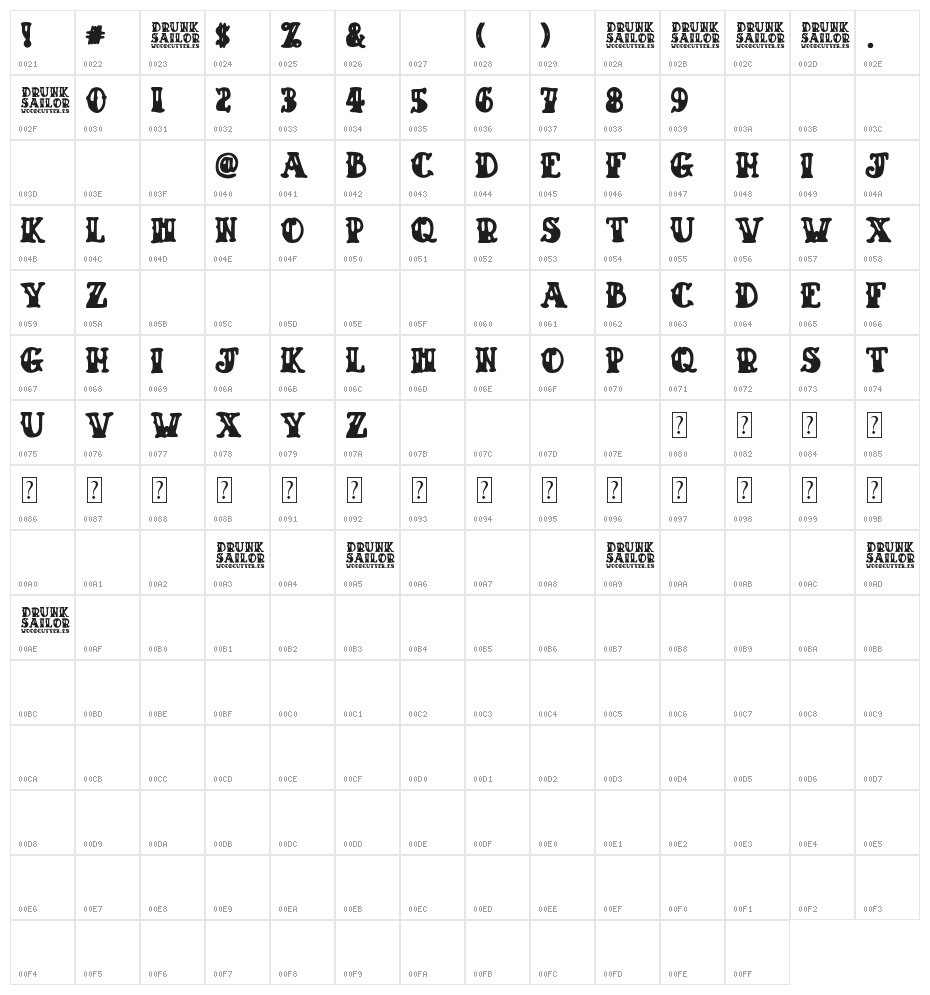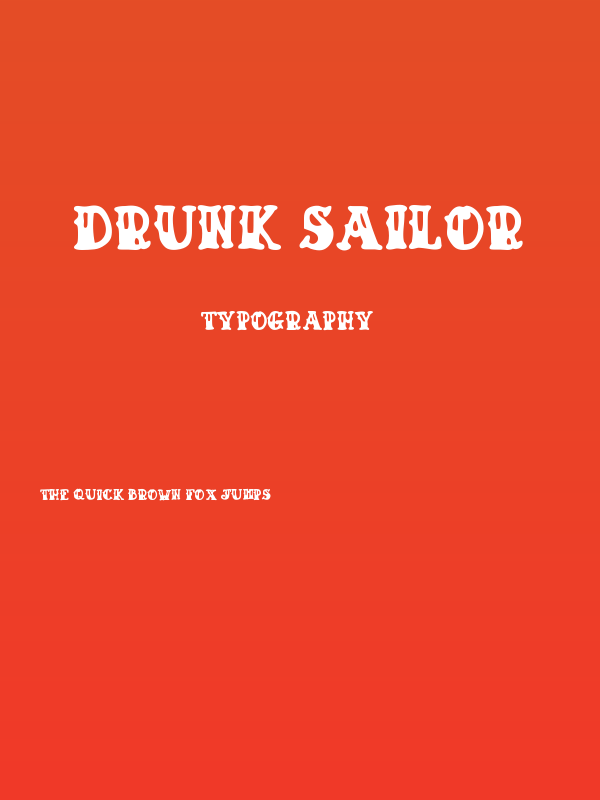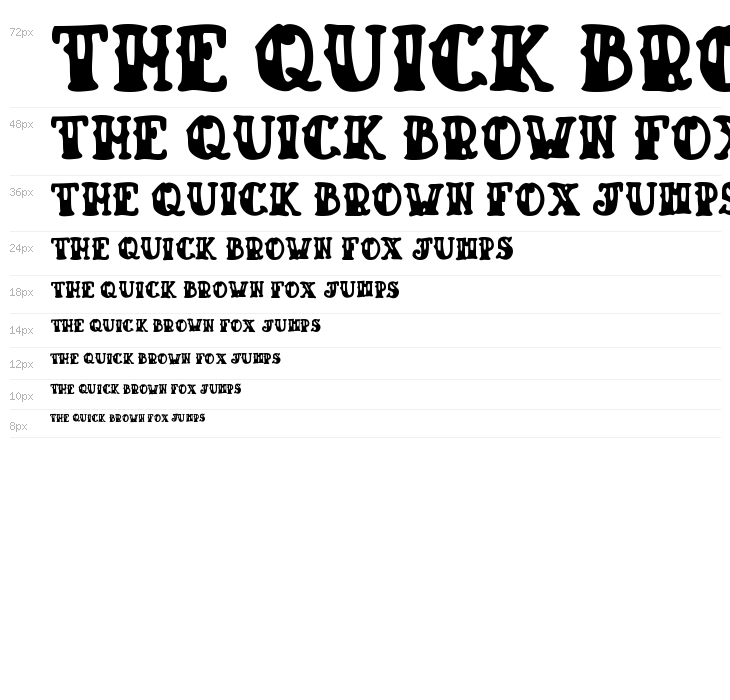
Drunk Sailor Font
Drunk Sailor Description
This font features a bold and playful design with exaggerated curves and a whimsical style. The characters have a distinct, wavy appearance that gives them a lively and dynamic feel. The strokes are thick and uneven, adding to the quirky and informal aesthetic. The font's unique style makes it stand out, with each letter having its own personality while maintaining a cohesive look. The numbers and special characters follow the same playful design, making it suitable for creative and fun projects.
| Proposed Projects | Ideal for posters, party invitations, children's book covers, and any project needing a fun, lively touch. |